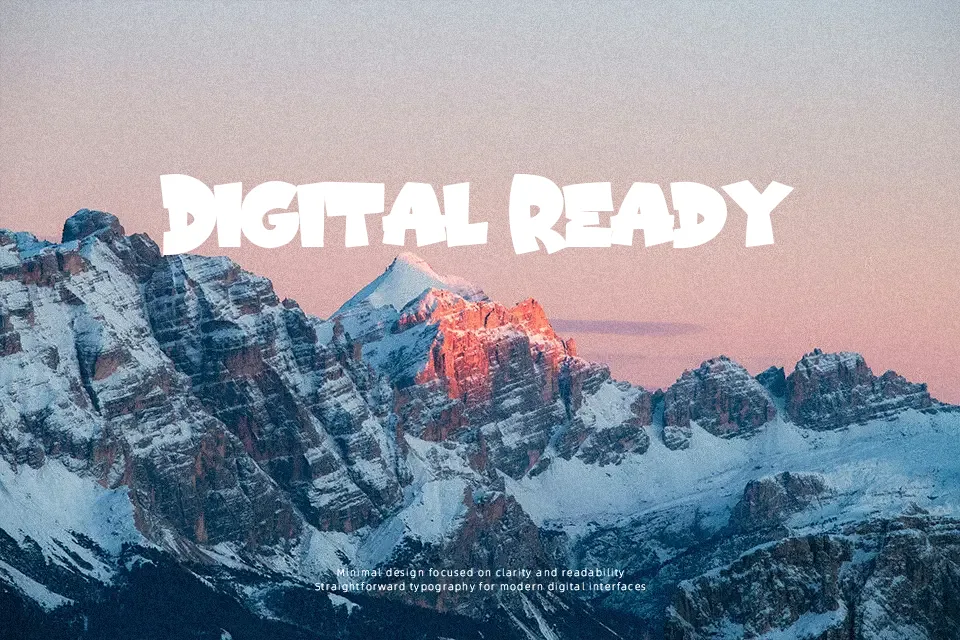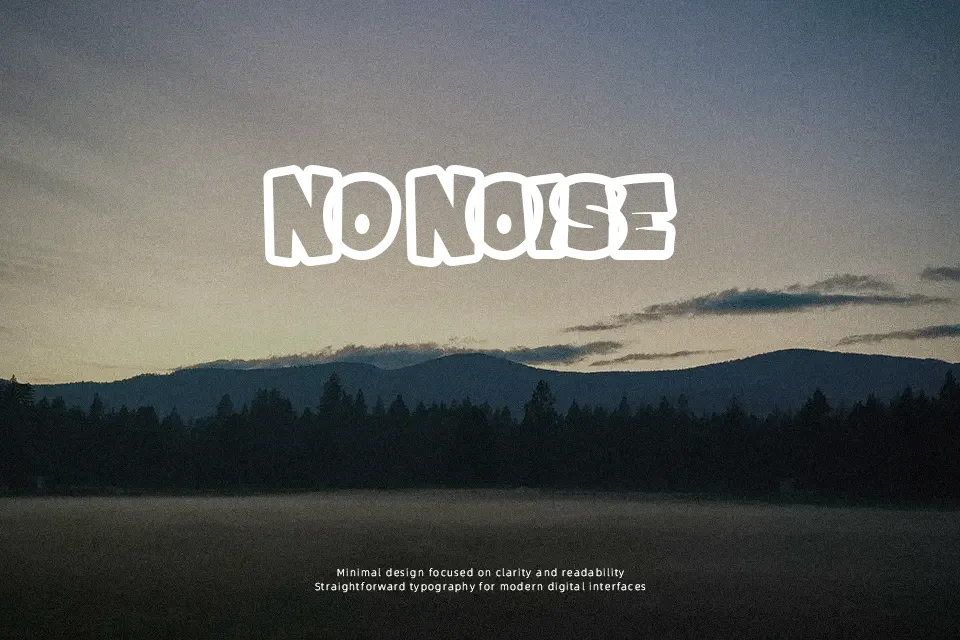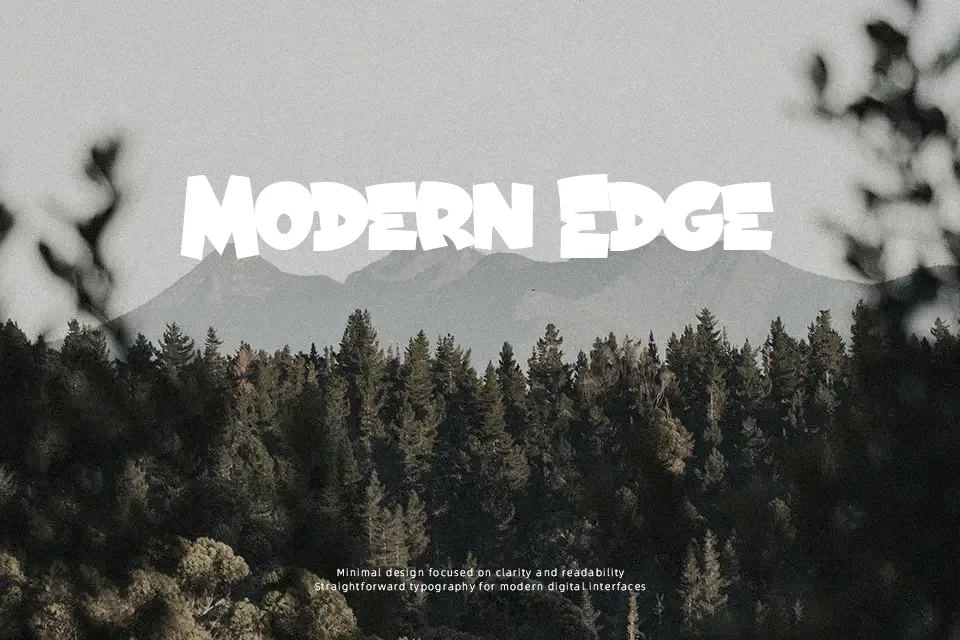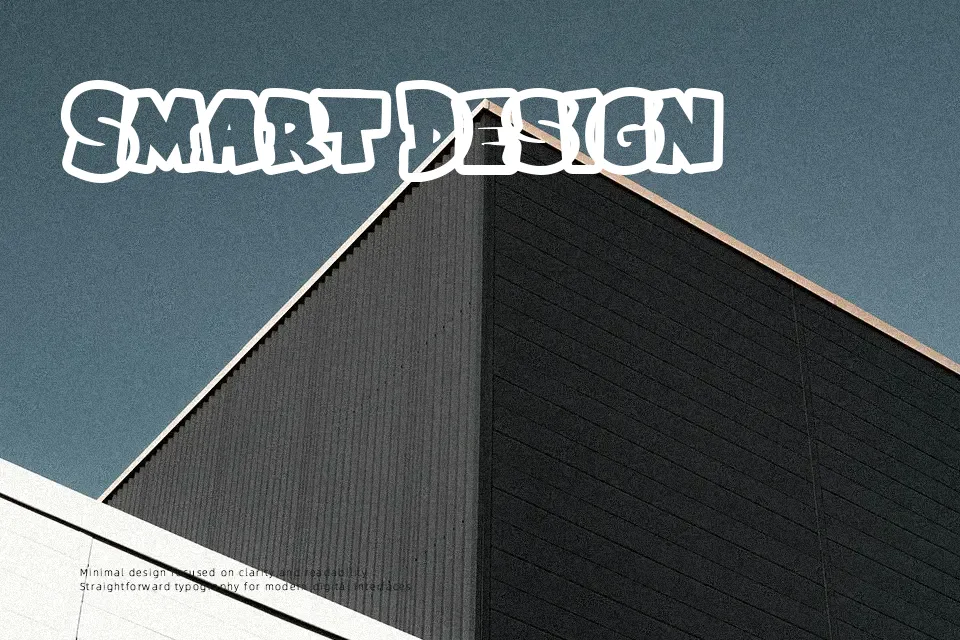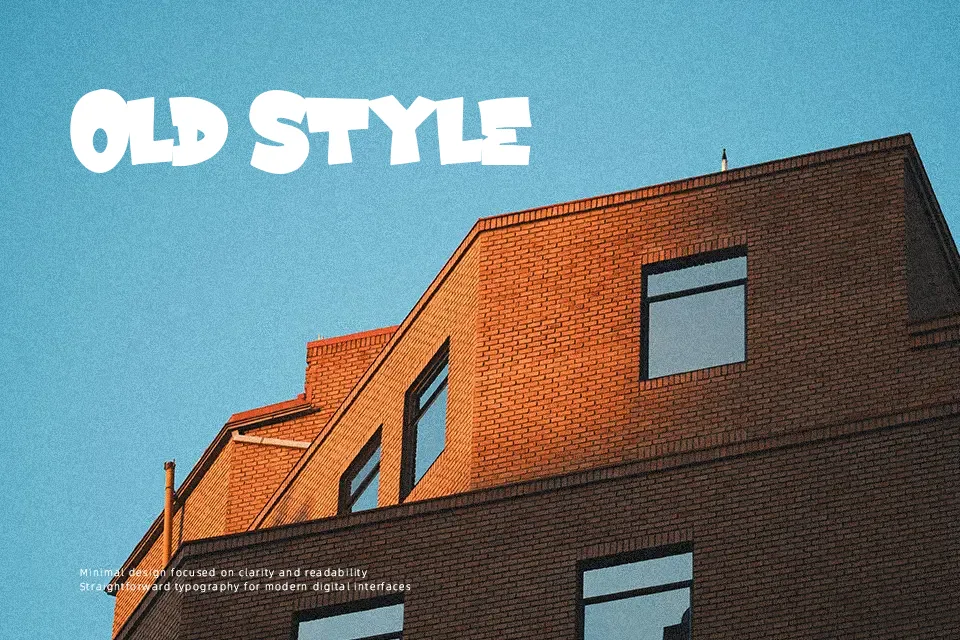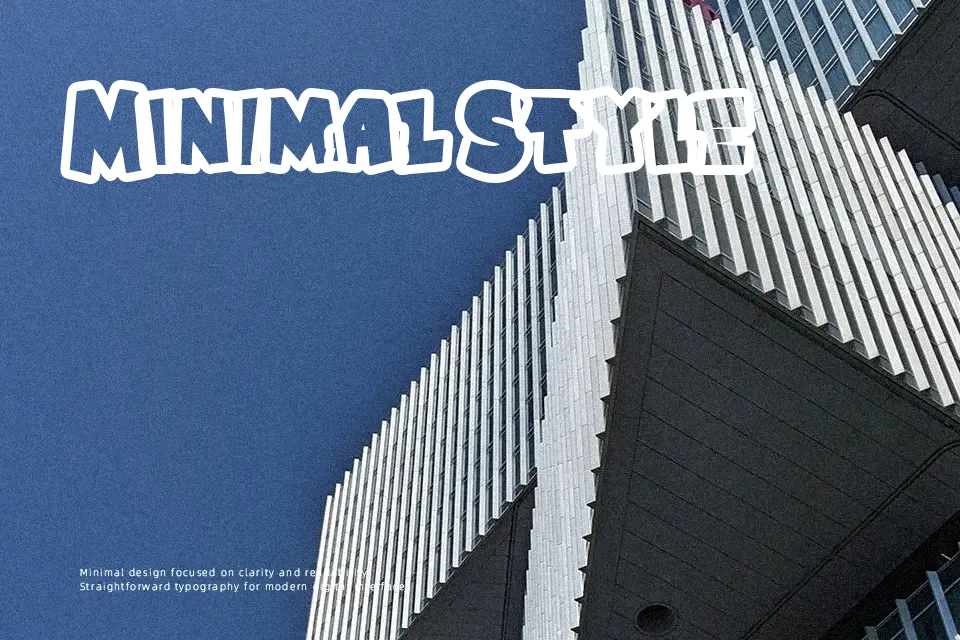
Blood Blaster Font
Blood Blaster grabs attention with its heavy, blocky structure and intensely sharp edges. The strokes carry an uncompromising weight that dominates the baseline, while tight spacing maintains legibility despite the aggressive styling. As a highly decorative display typeface, it firmly establishes a gritty, cartoonish aesthetic.
This typeface excels in high-energy environments like retro arcade game branding, extreme sports apparel, and spooky seasonal campaigns. The sharp details introduce a dramatic tension that standard sans-serifs lack. However, this chaotic energy becomes overwhelmingly cluttered in paragraph text or compact UI elements. It requires substantial breathing room and should remain restricted to large, commanding headlines.
– Arcade game title sequences
– Extreme sports apparel graphics
– Spooky seasonal event posters
– High-energy beverage packaging
– Corporate financial branding
– Extended paragraph reading
– Minimalist user interfaces
Perfect for gaming, halloween, and headline, with a bold and cartoon style.